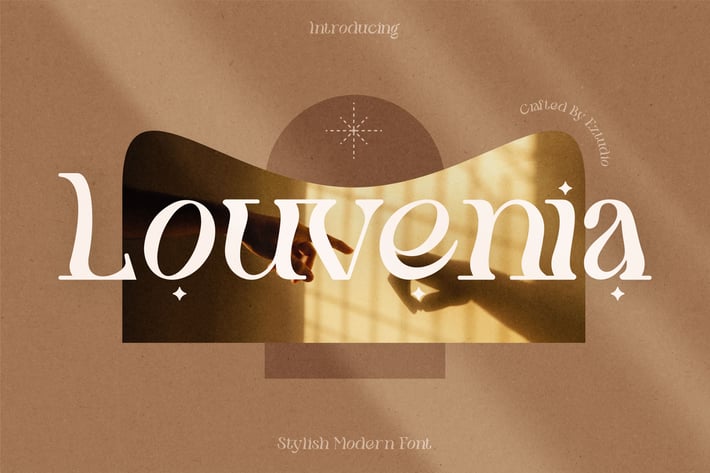
Stylish Modern Font - Louvenia
Louvenia Stylish Modern Font is font that includes uppercase letters, lowercase letters, numerals, ligatures & punctuation. Modern & Aesthetic Look. Created for poster, web design, branding, illustrations, badges and some other works.
The Louvenia font includes:
Uppercase Letters
Lowercase Letters
Ligatures
Special Characters
Multilingual Glyphs